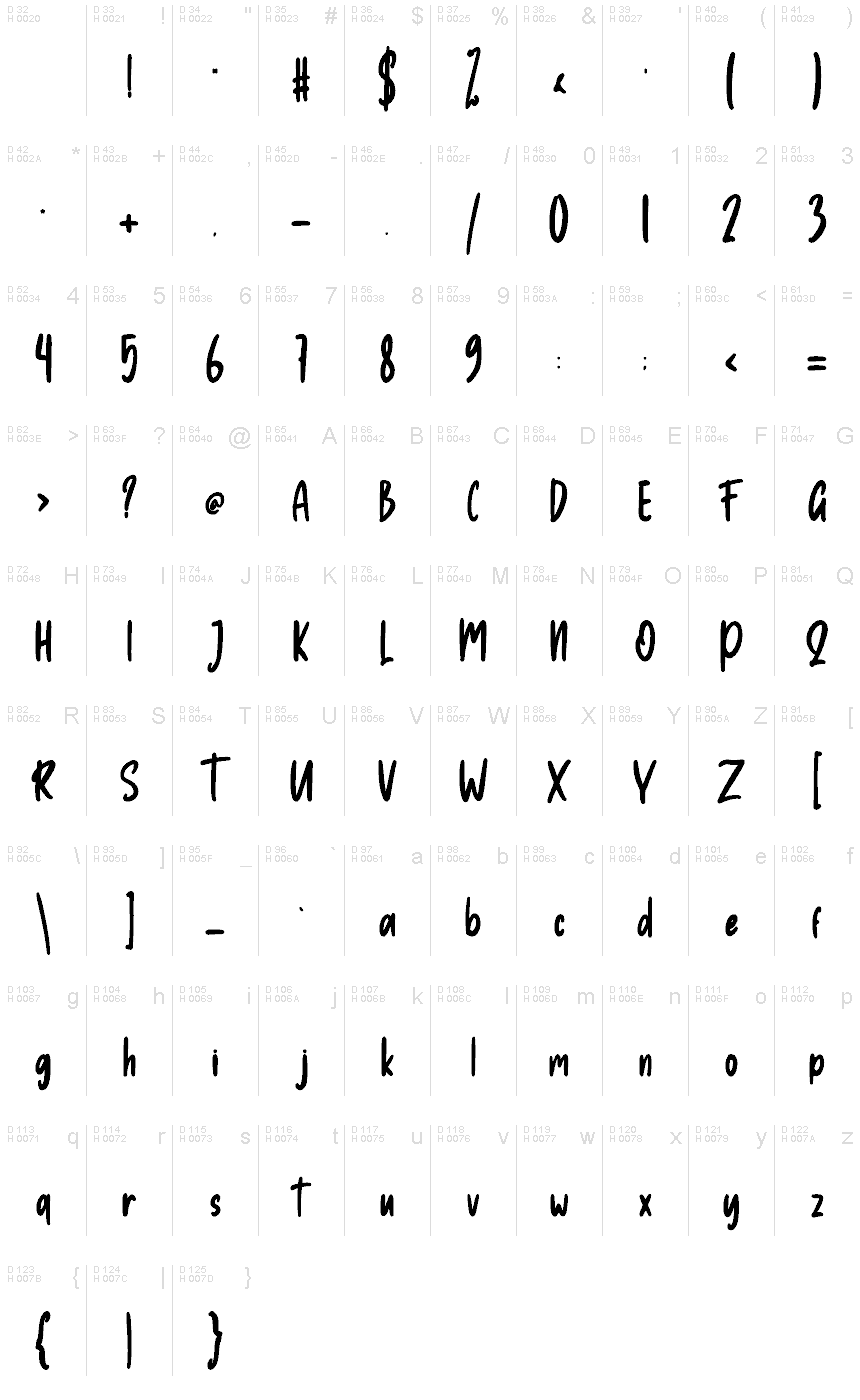
Thatrums
This is Thatrums by Skiiller studio, an exclusive handwritten font from our latest premium collection. It carries a friendly and relaxed appearance that evokes nostalgia and invites the audience to linger.
The letters can be used as individual elements for branding and packaging design, or combined to create attractive logotypes and titles for your apps. Use it to design your personal blogs, websites, or even to create stylish greetings cards for your loved ones.